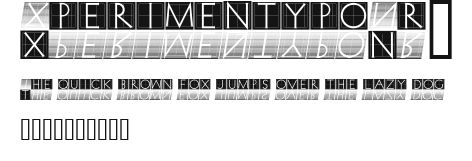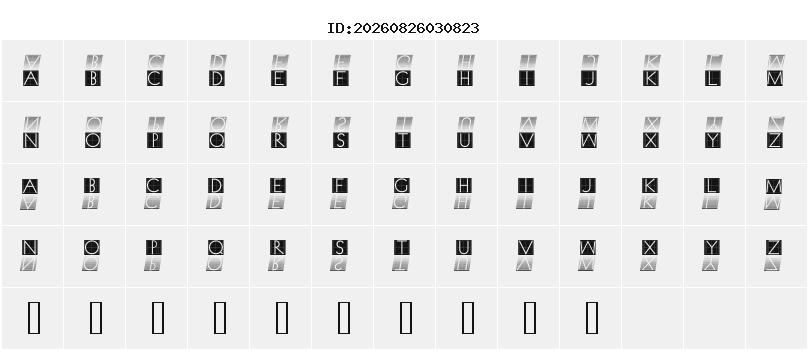
XperimentypoNr1 Preview
• Font Name: XperimentypoNr1
• Font Style: Oblique
• Font ID: Macromedia Fontographer 4.1.3 XperimentypoNr1 Oblique
• Full Font Name: XperimentypoNr1 Oblique
• Version: Macromedia Fontographer 4.1.3 03.12.2001
• PostScript Name: XperimentypoNr1Oblique
• Character Count: 72
About XperimentypoNr1.ttf
XperimentypoNr1.ttf is a modern, elegant sans-serif font designed for ultimate readability and visual harmony. Perfect for branding, headlines, web design, and print materials.